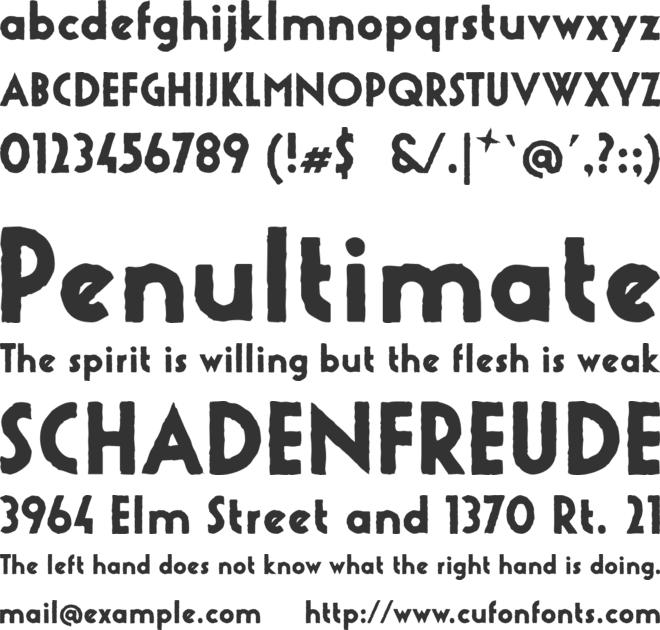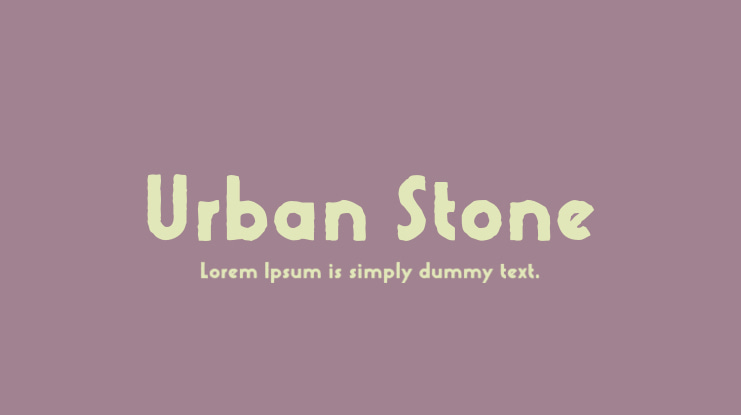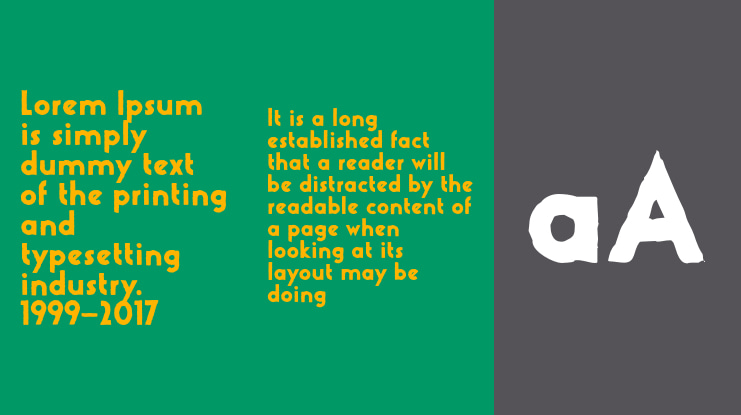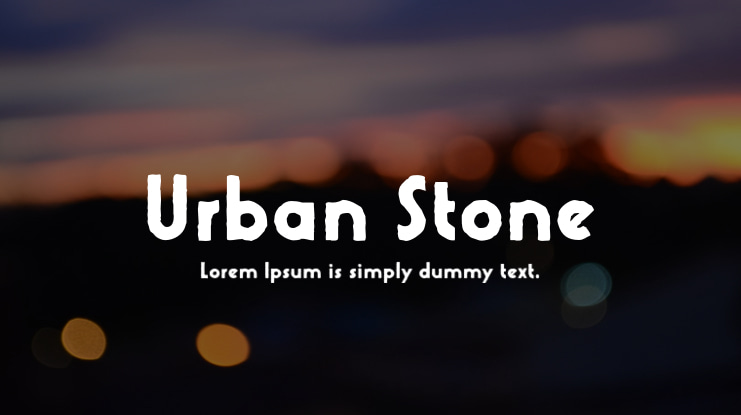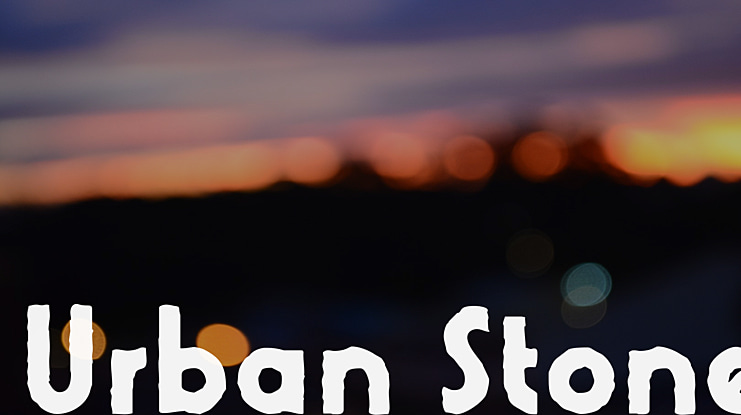
Urban Stone Font
URBAN STONE is a grunge version „URBAN TOUR” font family (Urban Tour Black).
Contains 13 stylistic alternates : A A Æ Æ B B E E F F G G O O P P R R S S W W & & * * and 5 contextual alternates (which are actually catchwords) : THE THE IN IN OF OF TO TO WITH WITH Please Note: -This font has been basically designed for poster display in black weight and big size. The rest of the family is a derivative work of it. I can’t guarantee if it works well on small size print. - Future updates may follow in the near future or on request